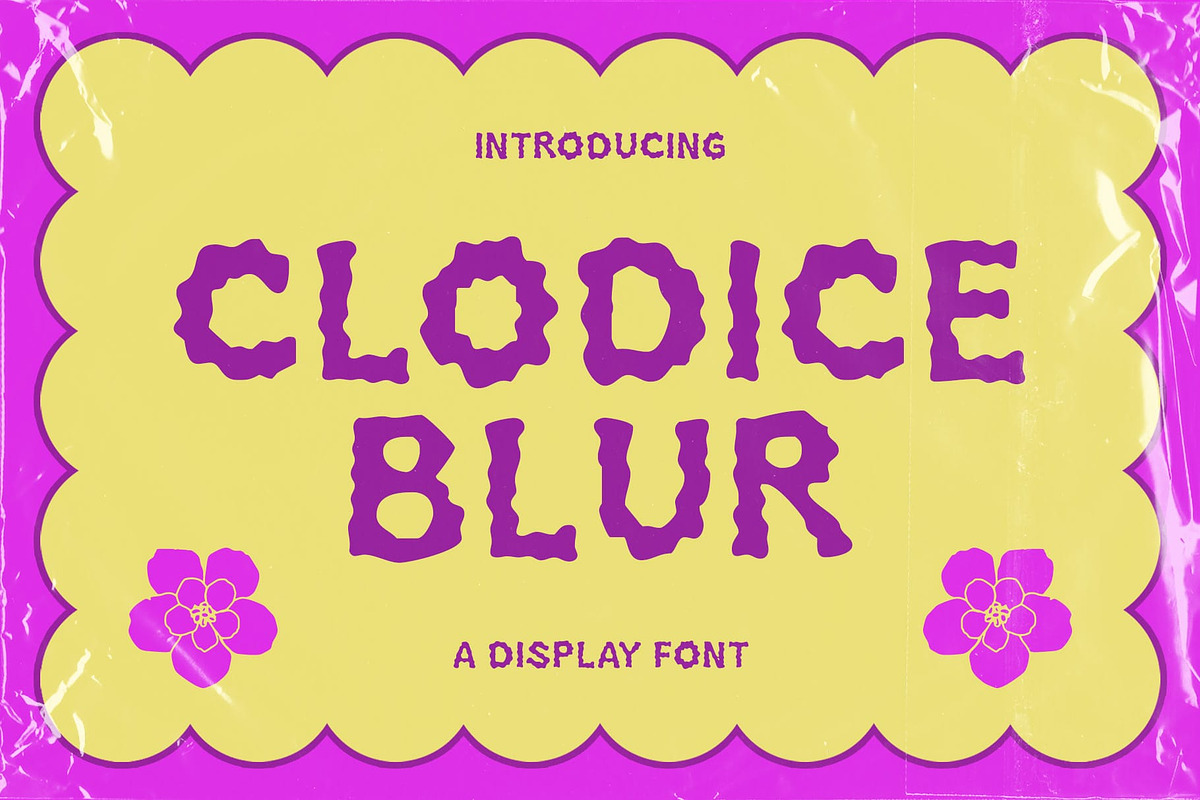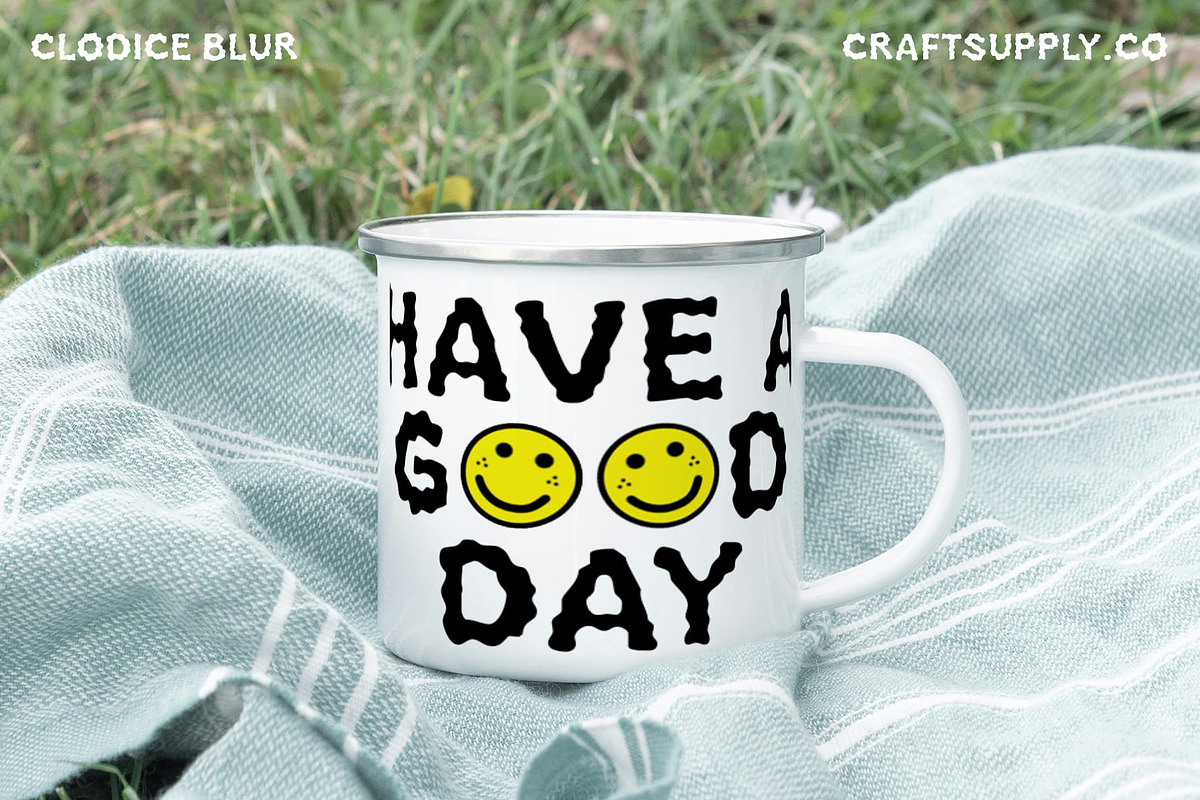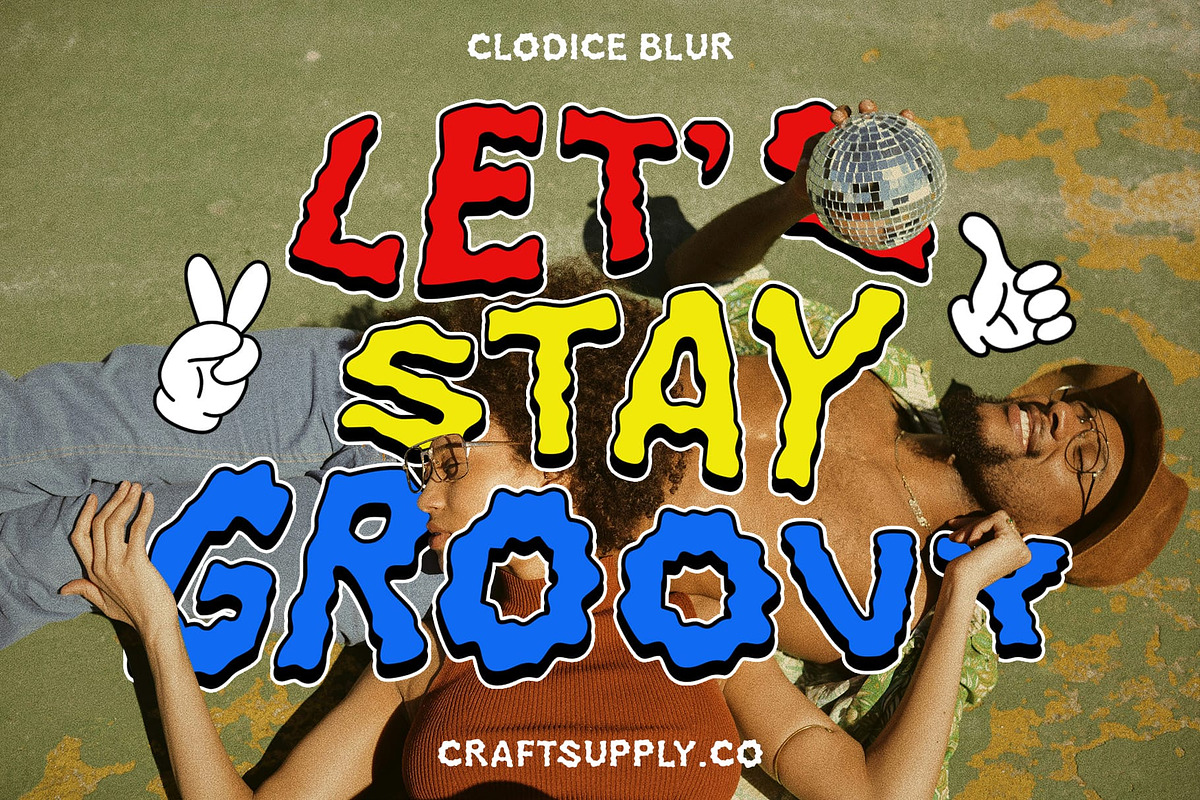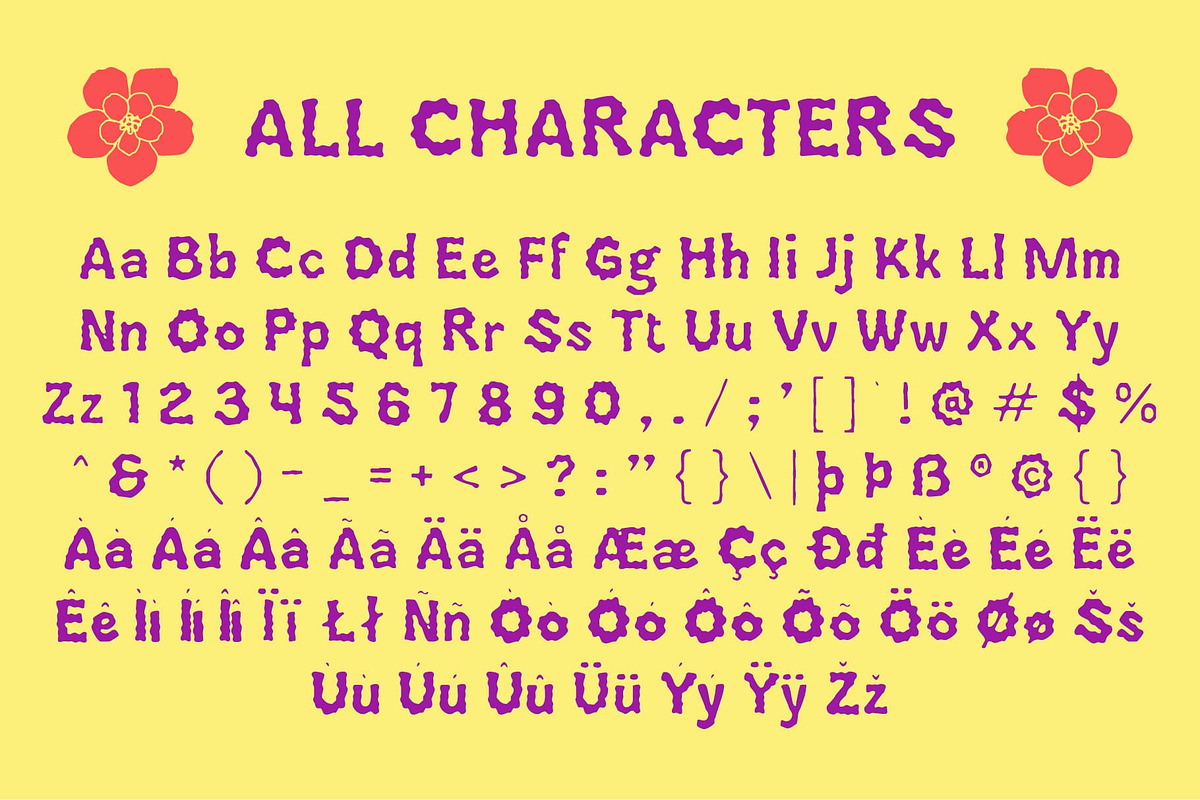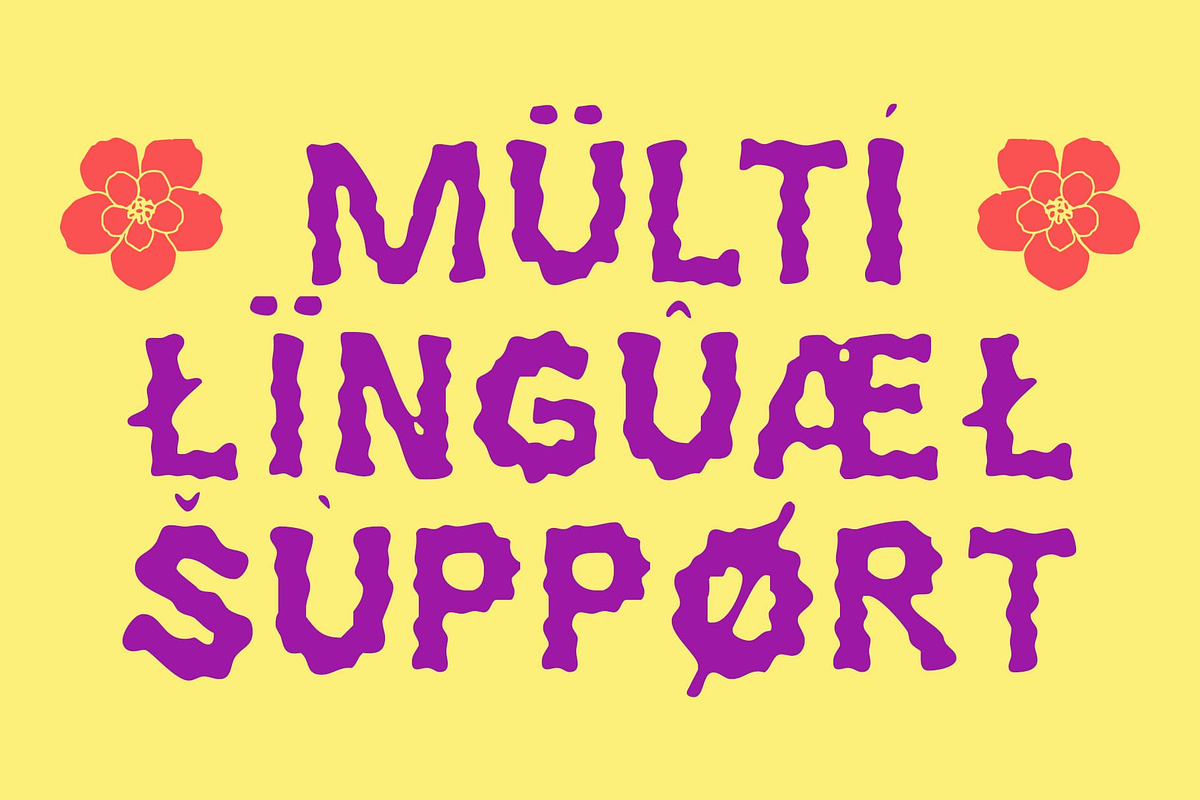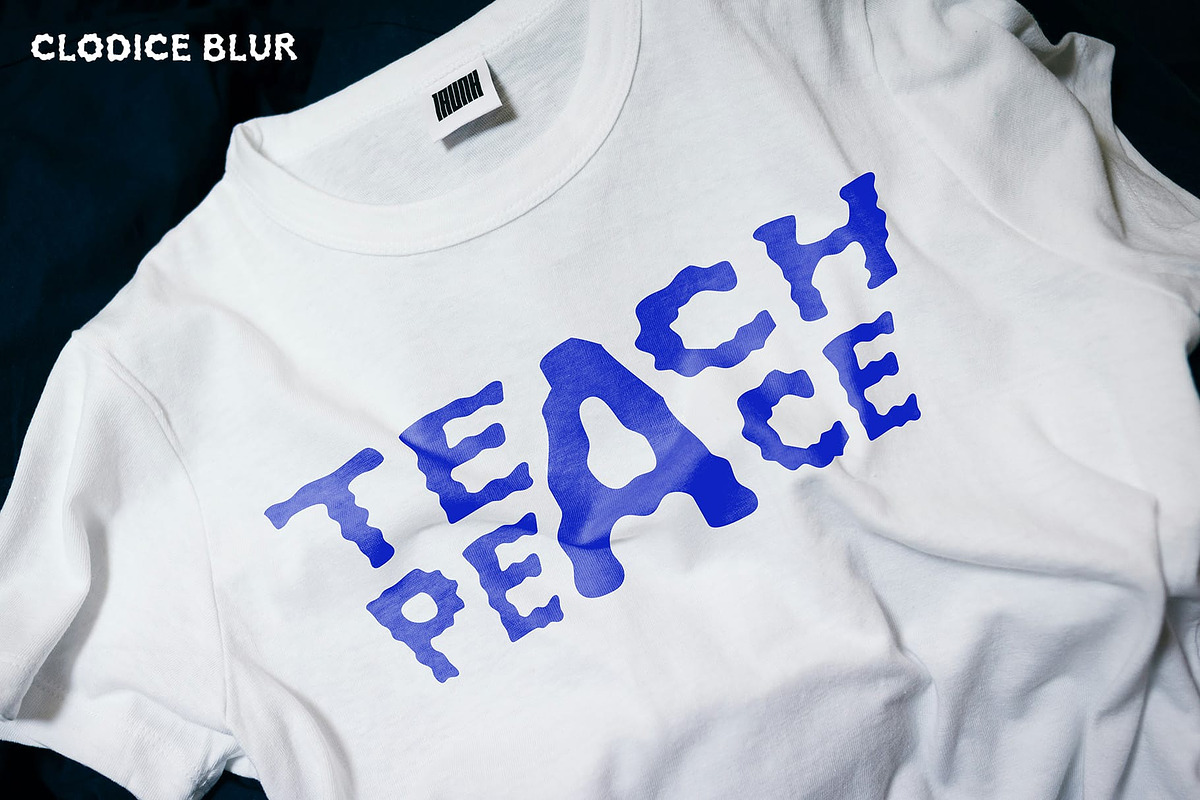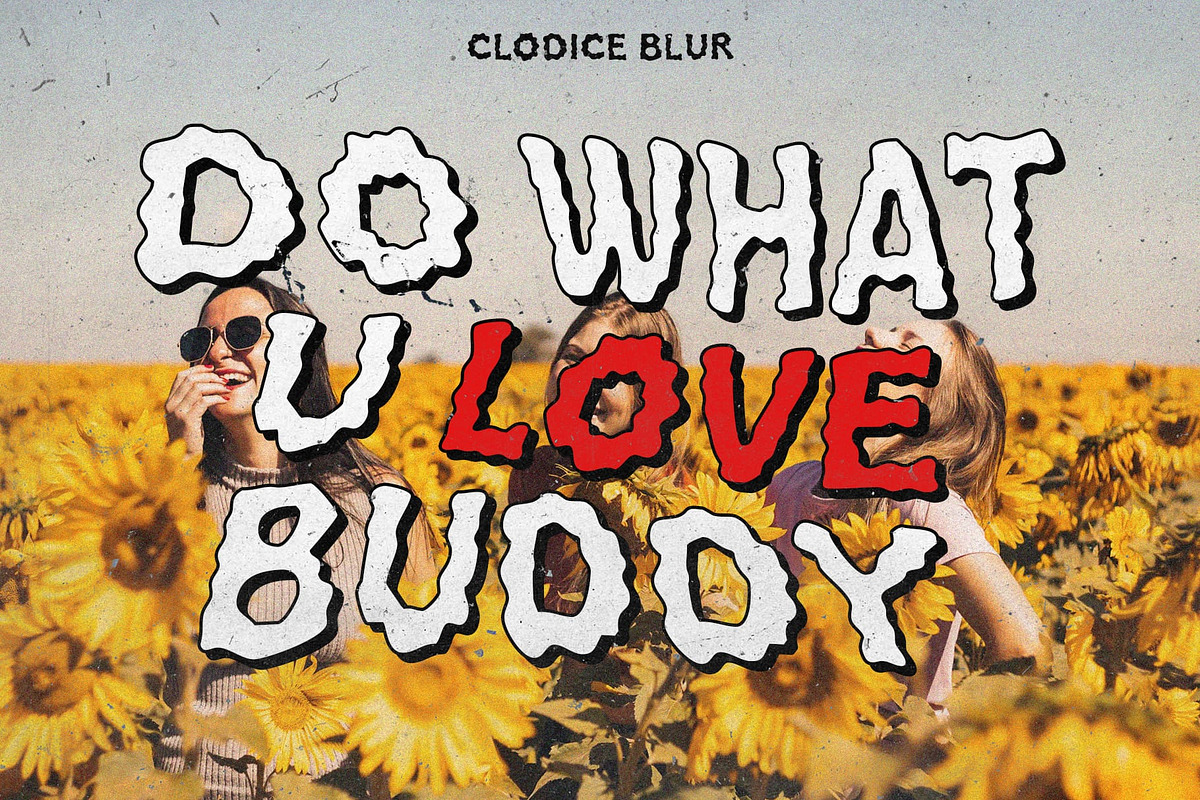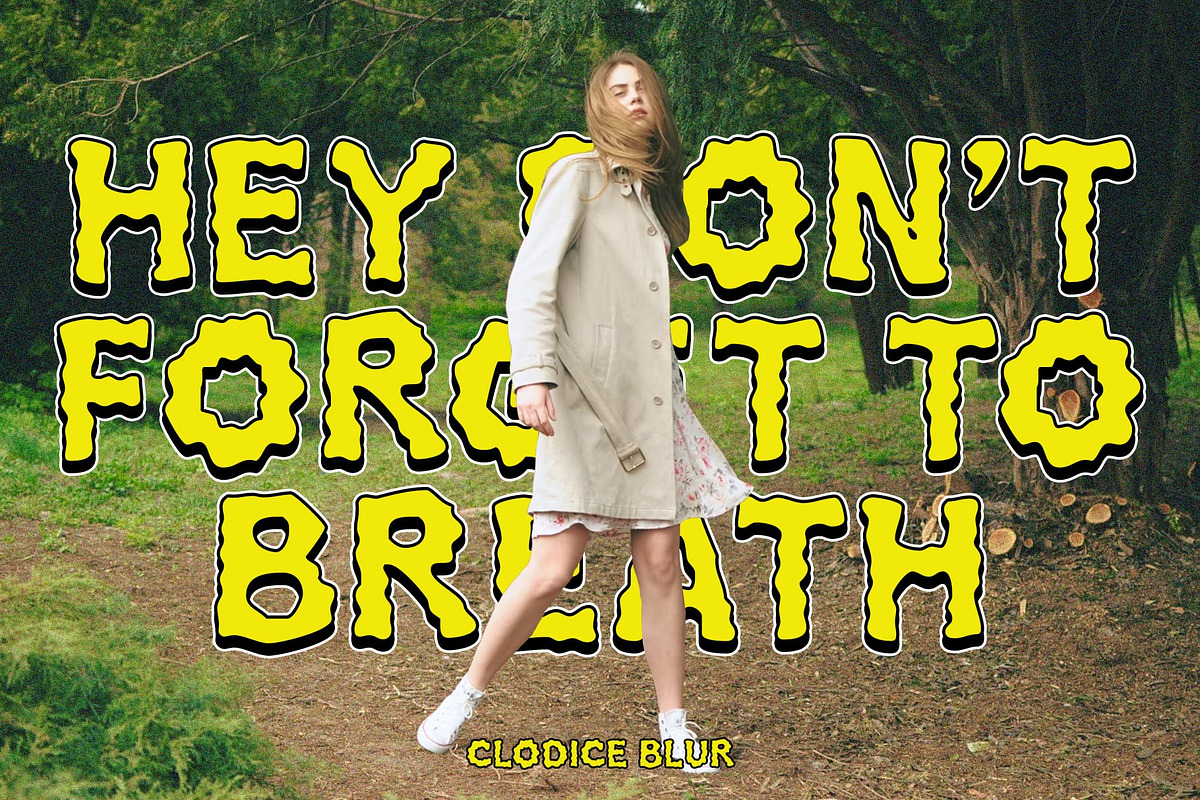
Clodice Blur
Clodice: Where Retro Meets Funk
Retro Bubble Blur
Clodice is a display font that combines funky and retro styles with unique bubble shapes, a cute look, and a blur vibe. Perfect for eye-catching displays, this font adds a playful and nostalgic touch to your designs.
Funky and Retro with Unique Bubble Shapes
With its distinct bubble shapes and retro design, Clodice offers a fresh take on traditional display fonts. The funky elements and blur vibe create a captivating and dynamic look, ideal for posters, digital media, and other projects that need a touch of whimsy and vintage charm.
Perfect for Striking Displays
Whether you’re designing a flyer for a retro-themed event or creating standout packaging, Clodice is sure to make an impression. Its unique bubble shapes and cute look make it perfect for displays that demand attention and convey a sense of fun and creativity.
Versatile and Easy to Use
Despite its distinctive appearance, Clodice is versatile and easy to use. The font works well in both large and small sizes, making it suitable for a variety of applications, from headlines and banners to logos and more. With its blend of retro design and funky bubble shapes, Clodice adds a captivating and nostalgic touch to any design.